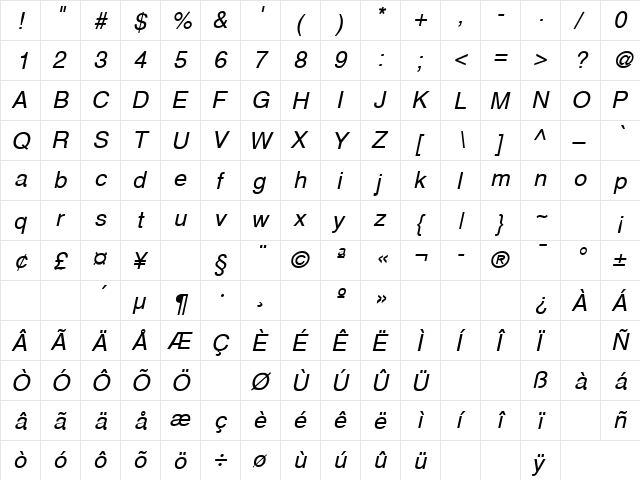
Aberden italic Italic
Design Context for Aberden italic Typeface
Aberden italic takes a measured approach to typography — its balanced proportions and neutral character make it a reliable workhorse for both digital and print work. Its italic angle brings a sense of urgency and motion to the letterforms.
Pro Tip: Try Aberden italic for annotation and caption copy alongside an upright companion — the contrast in angle creates a dynamic but ordered typographic system.